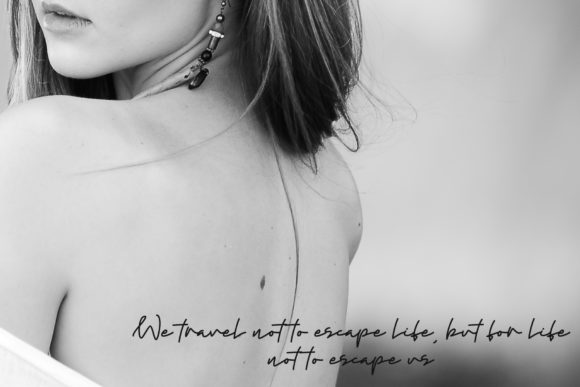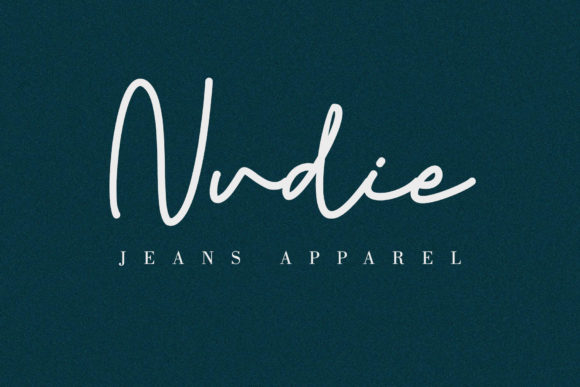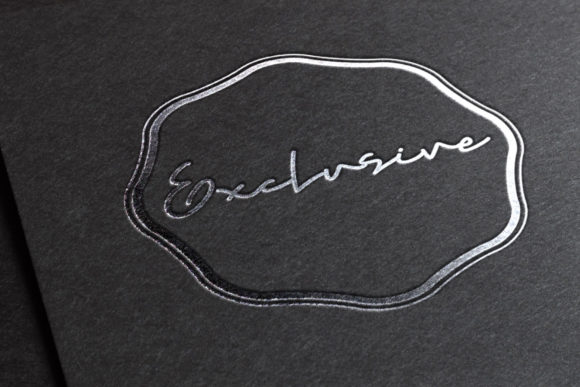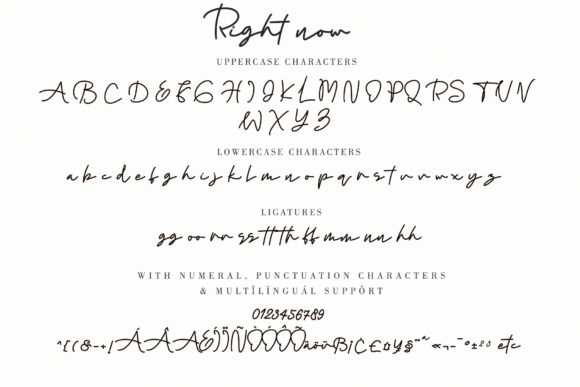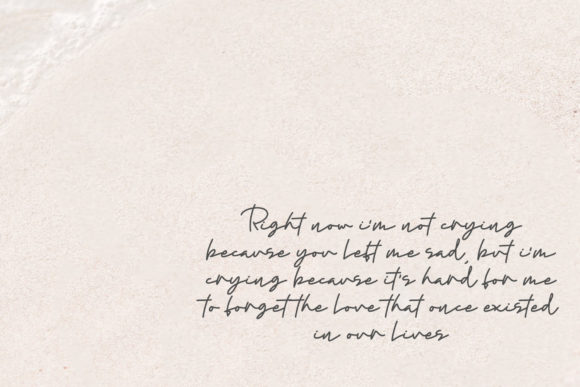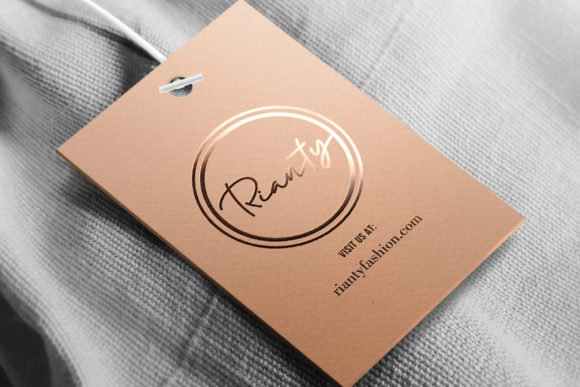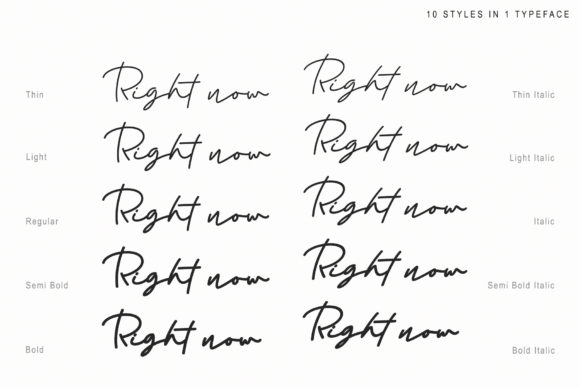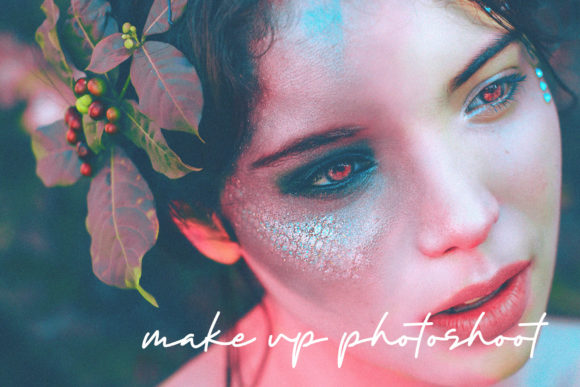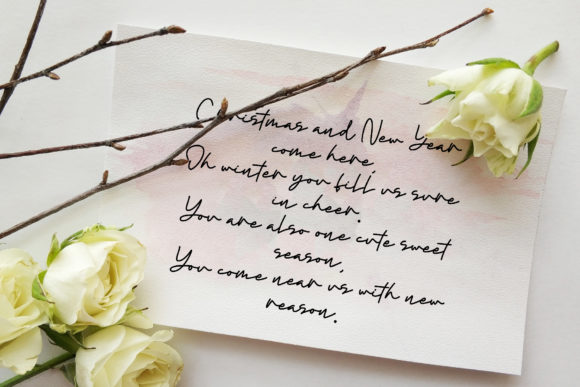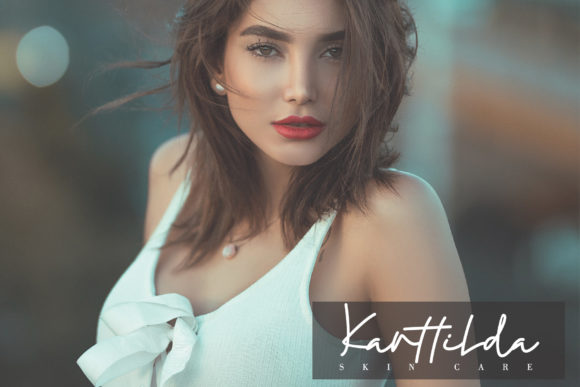
HomeScript FontsRight Now Font Script Fonts Right Now Font FacebookXPinterestWhatsApp Right Now Font Poster 2 Right Now Font Poster 3 Right Now Font Poster 4 Right Now Font Poster 5 Right Now Font Poster 6 Right Now Font Poster 7 Right Now Font Poster 8 Right Now Font Poster 9 Right Now Font Poster 10 Right Now Font Poster 11 Right Now Font Poster 12 Right Now Font Poster 13 About Right Now Font Right Now is monoline script font with an elegant style. Get inspired by its contemporary style! DOWNLOAD NOW People also explored Rustic Sweetie Pie Font Blankco Outline Extra Bold Font Badge of Demon Font Thanks Christmas Font Morphesd Font Art House Font Berttina Font Good Morning Font Christmas Font 340 0 TagsRight Now Font Previous articleBrithaniya FontNext articleSimple Happiness Font LEAVE A REPLY Cancel reply Comment: Please enter your comment! Name:* Please enter your name here Email:* You have entered an incorrect email address! Please enter your email address here Website: Save my name, email, and website in this browser for the next time I comment. Personal Use Free Vanchrome Personal Use Free Read more about this font Archeology Personal Use Free Read more about this font Loopina Personal Use Free Read more about this font Cheese Matcha Font Personal Use Free Read more about this font BLOG Best Fonts for YouTube Videos: Make Your Thumbnails Stand Out Best Fonts for YouTube Videos: Make Your Thumbnails Stand Out Choosing the right font can make a massive difference in how your YouTube videos perform.... Modern Sans-Serif Fonts That Brands Love in 2025 Using Fonts in Digital Marketing: Tips to Strengthen Your Brand Identity Transform Your Website: Elevate Your Typography with 7 Best Web Font Generators